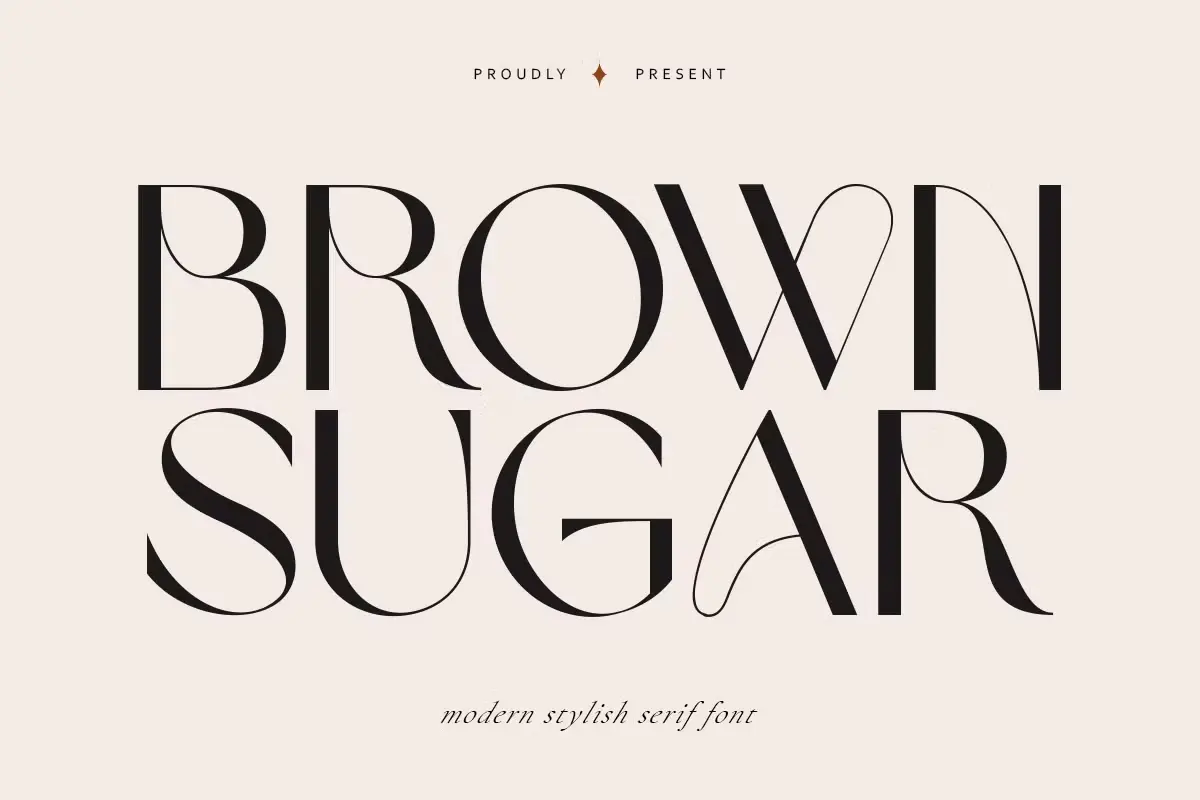
Brown Sugar is a stunning serif font crafted by Muntab Art, offering a perfect blend of classic elegance and modern flair. This highly adaptable typeface includes a full set of uppercase letters, numerals, and a variety of symbols, making it a versatile choice for a wide range of creative projects. Whether you’re designing posters, websites, branding materials, illustrations, or badges, Brown Sugar is equipped to elevate your work with its timeless yet contemporary aesthetic.
Brown Sugar Serif Font
The font features a mix of traditional and modern serifs, giving it a unique texture that enhances any project it’s applied to. With Brown Sugar, your designs can achieve a striking balance of beauty and sophistication, whether you’re creating bold posters, clean website layouts, or distinctive brand identities. Its clear, well-proportioned lines ensure readability and visual appeal across both digital and print media, making it a reliable choice for any medium.
Brown Sugar’s versatile color palette allows it to adapt to a variety of styles, from classic and refined to bold and rebellious. Incorporating this font into your designs will add a professional, polished, and refined touch, making your work stand out. Its combination of warm and cool tones, along with its playful yet elegant design elements, makes it an excellent choice for enhancing the quality of any project.
Whether used as a subtle headline font or as the centerpiece of your design, Brown Sugar is ideal for designers aiming to leave a lasting impression.